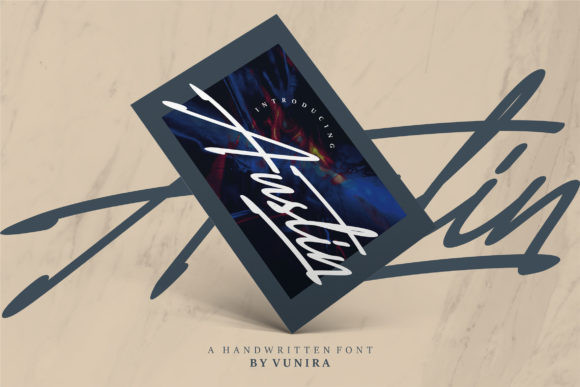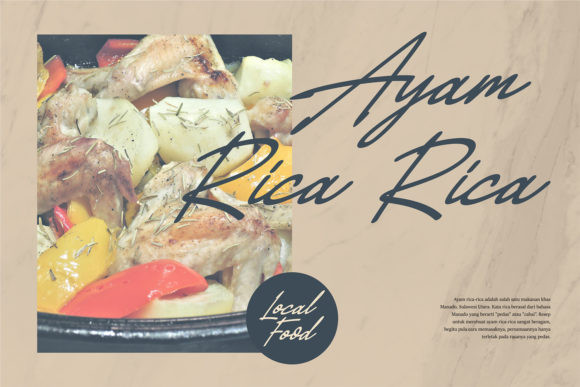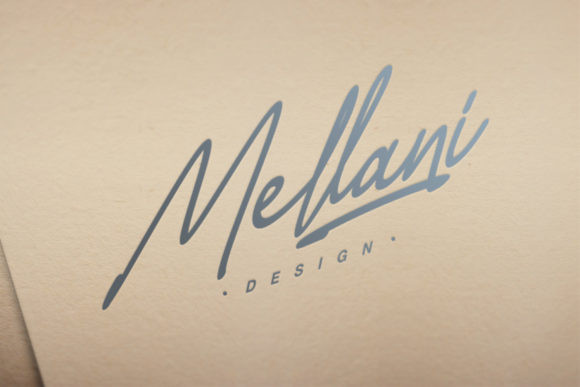
Austin Font
Austin is an amazing signature font. It features gorgeous ligatures that make this script incredibly versatile. Whether you’re looking for fonts for Instagram or calligraphy scripts for DIY projects, Austin will turn any creative idea into a true piece of art!